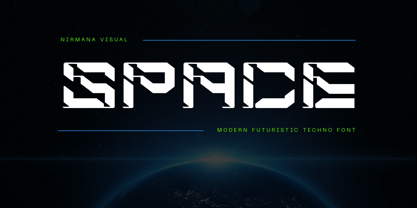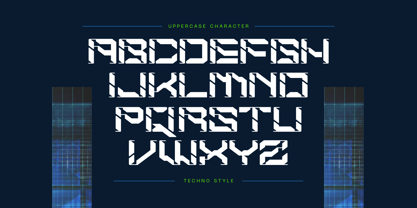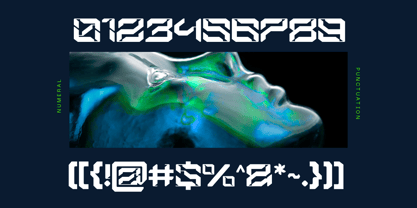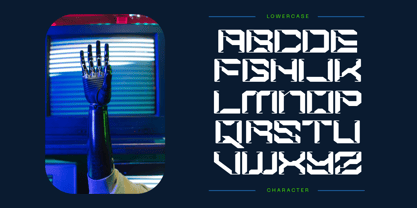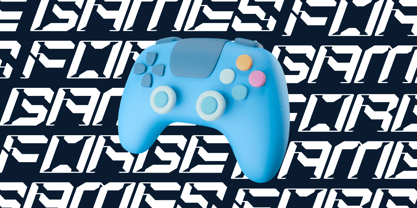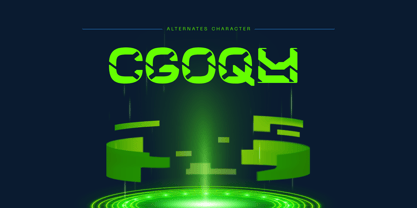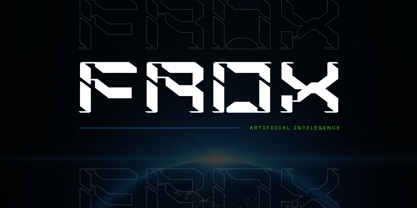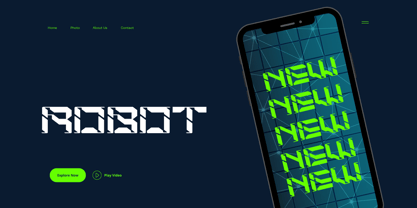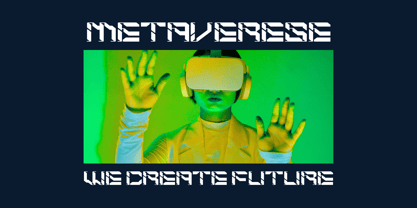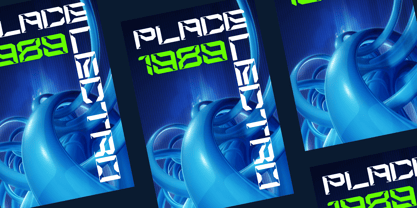
Modern Space
von Nirmana Visual
Die Schriftfamilie Modern Space wurde von Sigit Dwipa entworfen und von Nirmana Visual veröffentlicht. Modern Space enthält 2 Stile und Familienpaketoptionen. Mehr über diese Familie
Modern Space is a sleek futuristic techno font designed for bold logos and cutting-edge visuals. With Regular and Italic styles, it delivers sharp lines and a digital edge perfect for tech, sci-fi, gaming, and modern branding. Its clean geometry and high-tech feel make Modern Space ideal for projects seeking a forward-looking, innovative identity. Bring the future to your design with this dynamic display font.
Designer: Sigit Dwipa
Foundry: Nirmana Visual